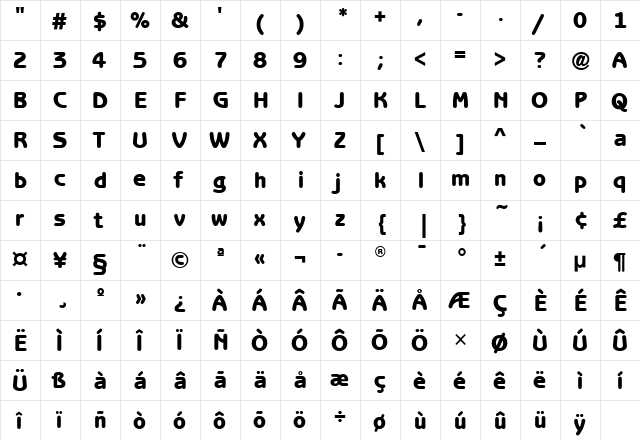
BenguiatGotMdITC Heavy
Design Context for BenguiatGotMdITC Typeface
BenguiatGotMdITC is a composed and adaptable typeface that performs quietly and consistently across a wide range of design contexts.